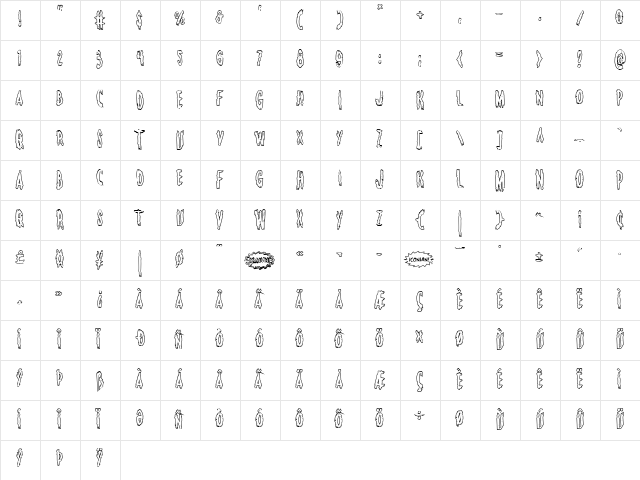
Monsterama Outline Regular
Design Context for Monsterama Outline Typeface
Monsterama Outline is built around its visual character rather than neutral utility — its distinctive forms are designed to make an impression at display sizes.
Font Pairing: Pair with a clean neutral sans-serif for body copy to let Monsterama Outline's character lead without overwhelming the composition.
Pro Tip: Use Monsterama Outline exclusively at display sizes — it was designed to be seen, not read at length. Let a neutral companion handle body copy.